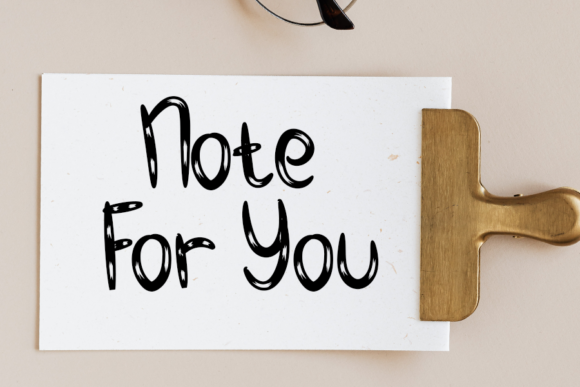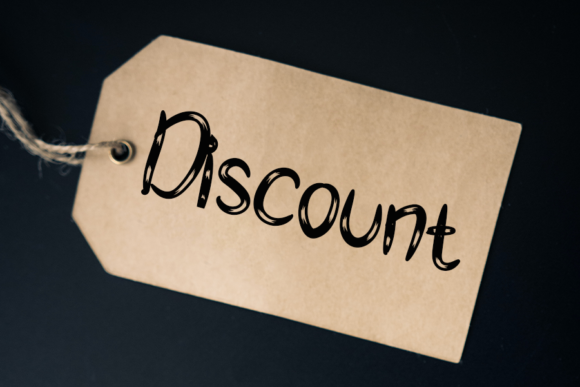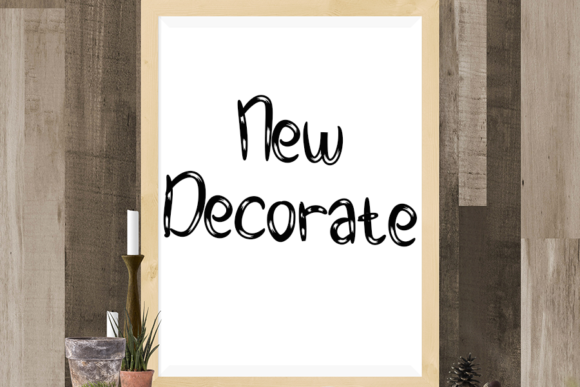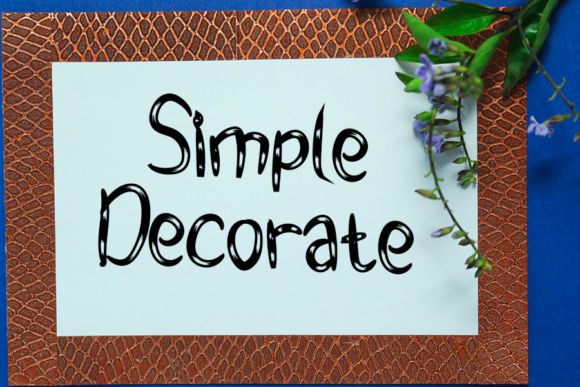
Introduction to Future Home Font
Imagine you’re brainstorming ideas for a high-profile creative project, and you need the perfect font to make your concept pop. You scroll through your design resources, and suddenly, you stumble upon a unique display font that changes everything. For designers, finding that one special font can be a game-changer, and that’s exactly what the Future Home Font offers.
With its distinctive brush stroke pattern, this free download is ideal for urban, street art designs that demand a high-quality aesthetic. The transparent background of the Future Home Font allows for seamless integration with any design, making it a valuable resource for creatives. Whether you’re working on a personal or professional project, this font is sure to elevate your design to the next level.
Key Features of Future Home Font
- High-quality, modern design with a transparent background, perfect for creative projects
- Designed with a futuristic aesthetic, ideal for futuristic and sci-fi themed creative projects
- Supports a wide range of languages, including Latin, Cyrillic, and Greek, making it a versatile design resource
- Perfect for use in digital design, including UI/UX design, graphic design, and web design, thanks to its modern and sleek appearance
Honest Review: Future Home Font
I recently had the chance to work with the Future Home Font, and I’m excited to share my honest thoughts. As a designer, I’m always on the lookout for high-quality fonts that can elevate my creative projects. Future Home Font did not disappoint.
- ✨ The font is incredibly versatile, making it perfect for a wide range of design applications.
- ✨ The transparent background is a game-changer for designers who need to create visually appealing graphics.
- ⚠️ The font may not be suitable for projects that require a more formal or traditional look.
- ⚠️ Some users may find the font’s unique style to be overwhelming or difficult to read in certain contexts.
Overall, I’m impressed with the Future Home Font. It’s a great addition to any designer’s toolkit, and I appreciate its transparency and versatility. While it may not be perfect for every project, it’s certainly worth considering for your next creative endeavor.
The Future Home Font is commonly used in creative projects that require a modern and sleek aesthetic. It’s a great choice for logos, branding, and marketing materials, as well as presentations and documents that require a high level of professionalism.